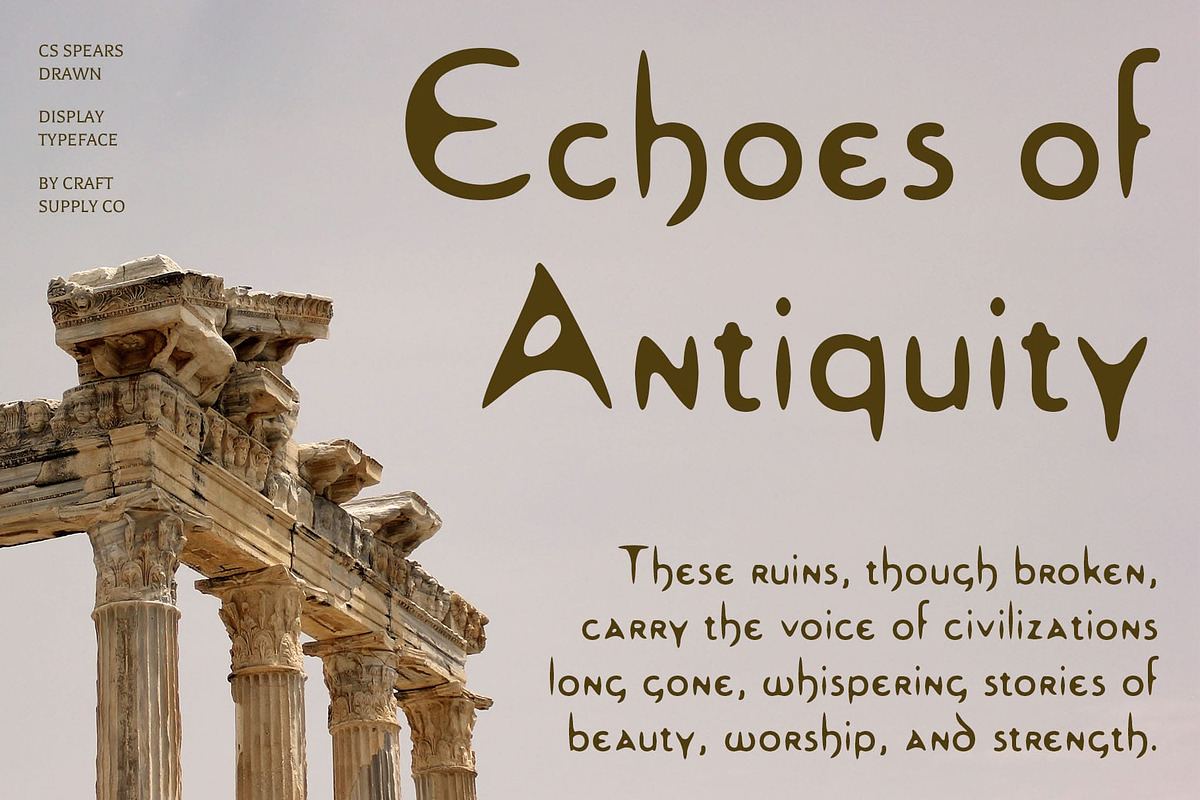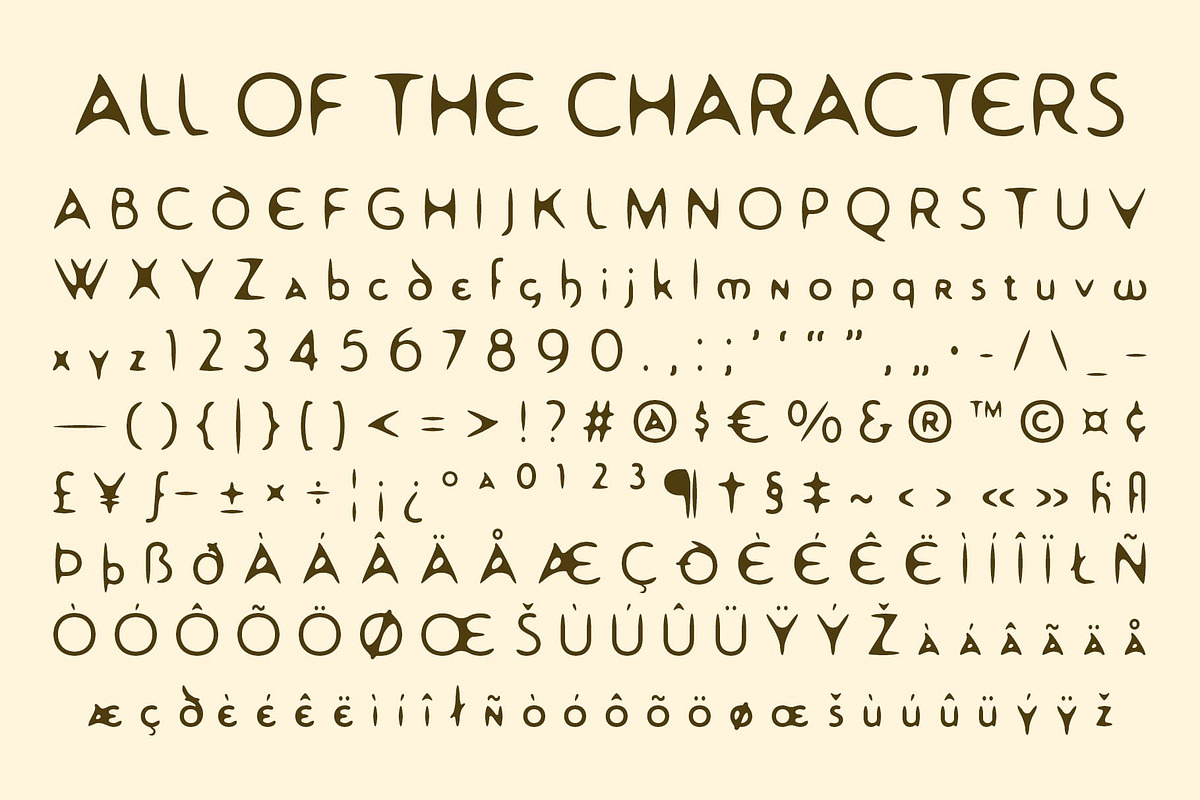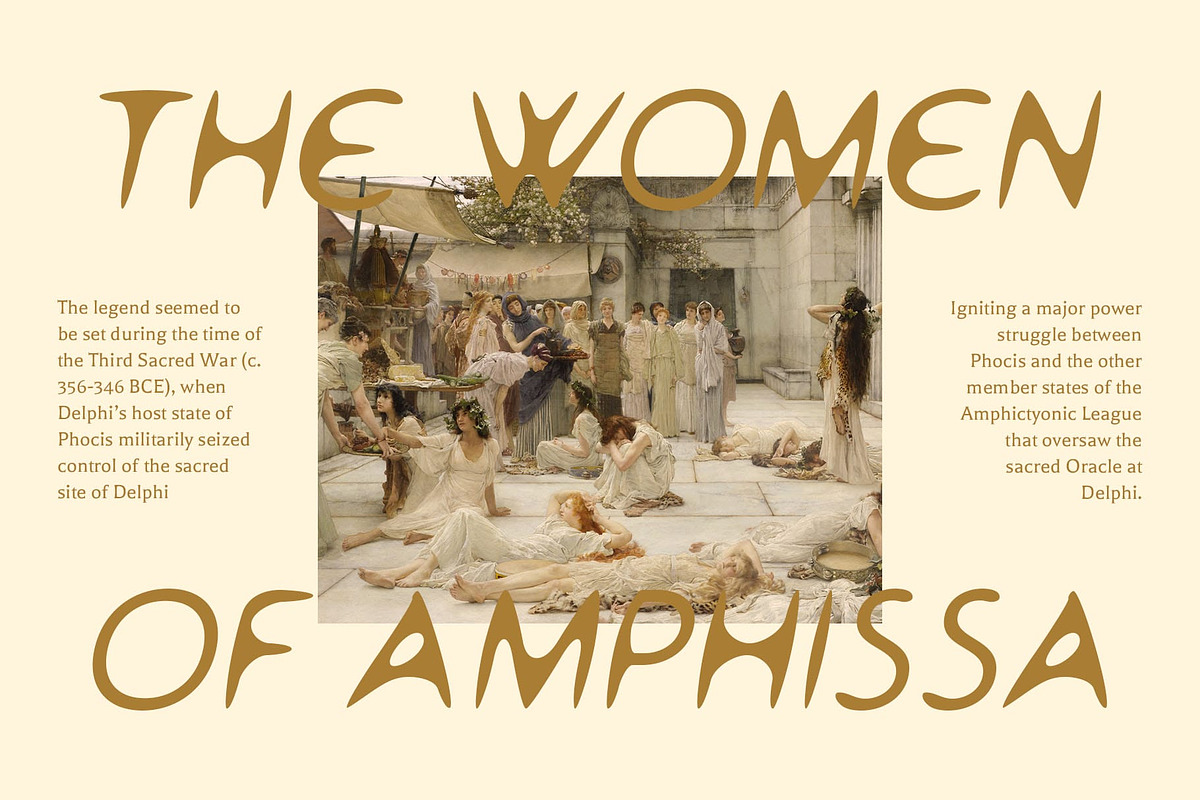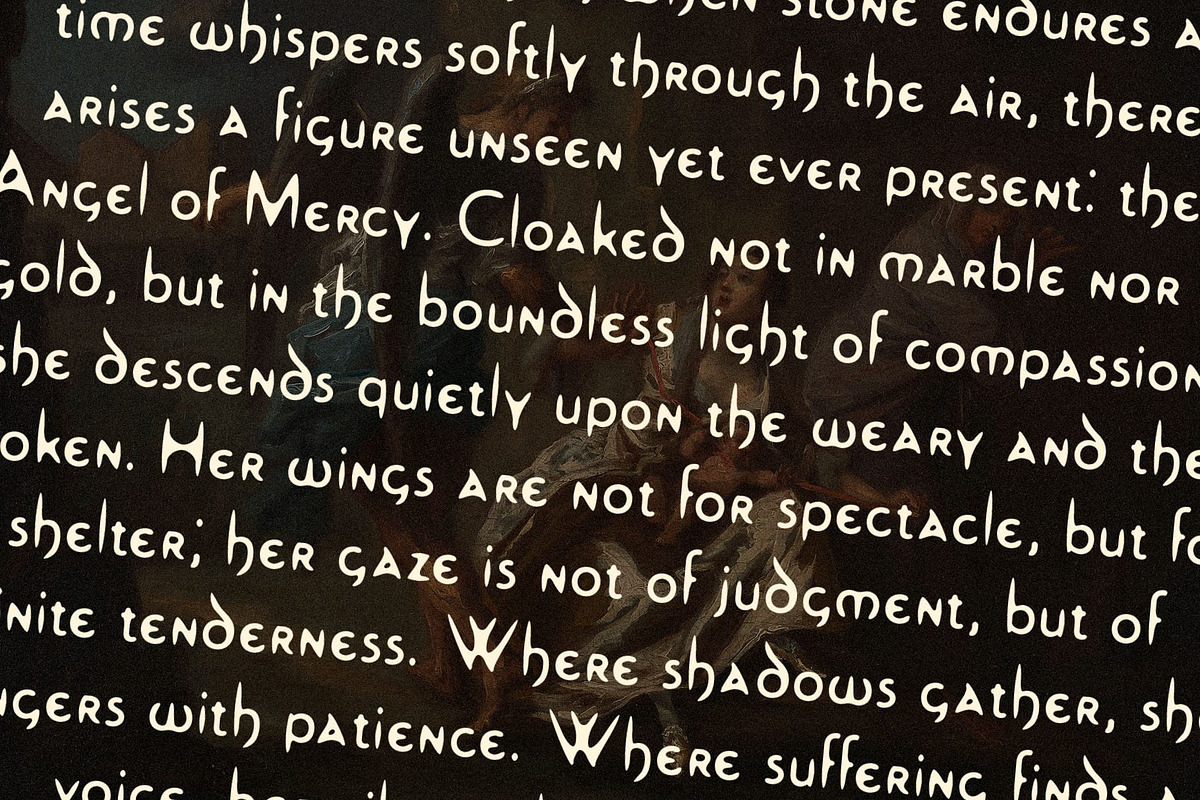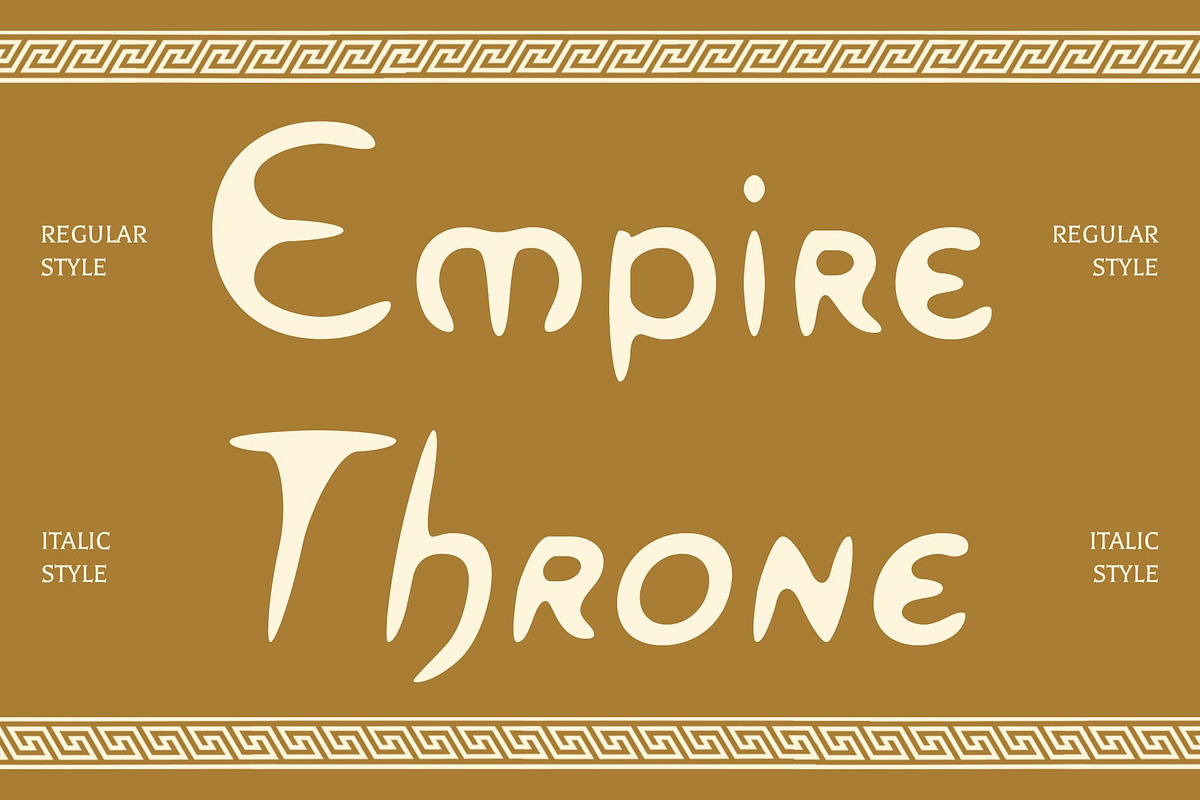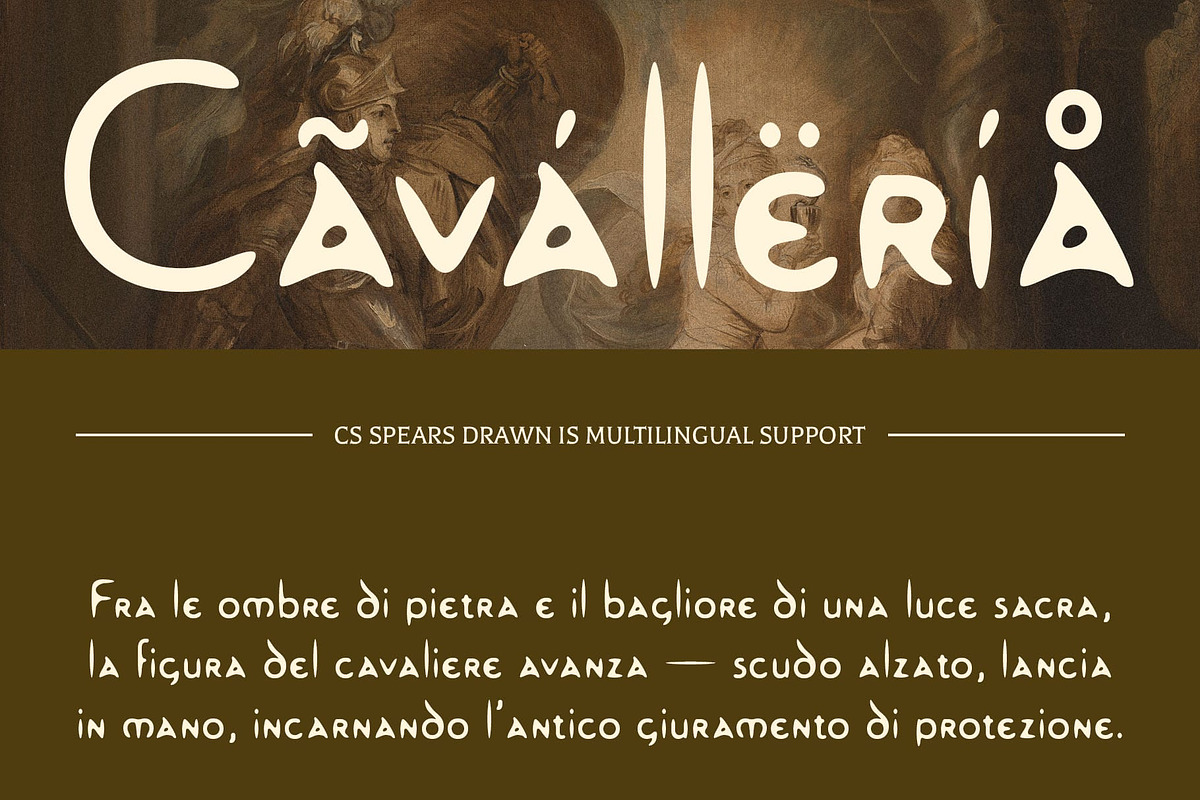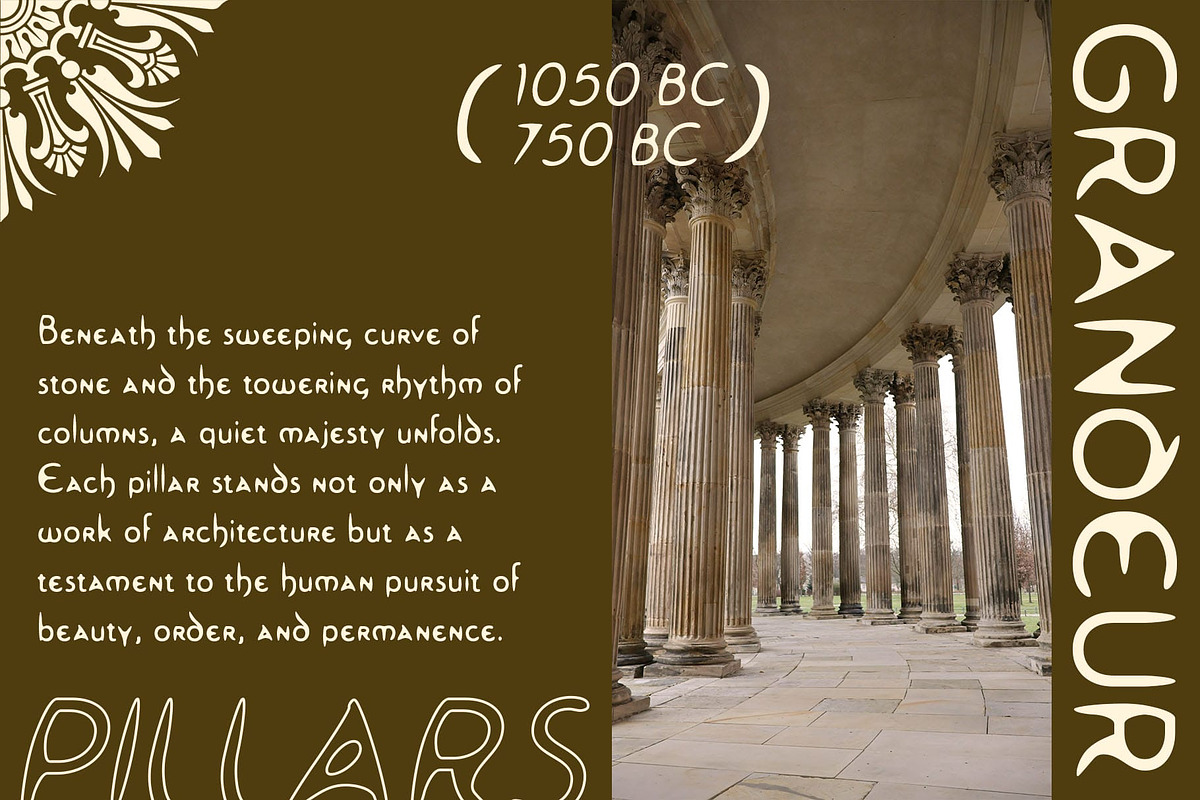
CS Spears Drawn
CS Spears Drawn – Uncial Display Font with Historic Elegance
Historic Tradition with Artistic Flair This Font takes inspiration from ancient manuscripts, translating their timeless character into a modern display typeface. With its uncial-style sans serif structure, the font conveys tradition and authority while remaining approachable and versatile. The letterforms capture a sense of heritage, making it ideal for projects that want to connect with classical aesthetics.
Hand-Drawn Finish for Unique Personality What sets font apart is its expressive drawn texture. Each character feels handmade, with subtle irregularities that highlight artistry and individuality. This handcrafted quality not only enhances the font’s visual appeal but also adds warmth, ensuring it stands out in a world of sterile, digital-perfect typefaces.
Perfect for Refined and Cultural Design Whether you are designing book titles, museum exhibits, or cultural posters, this font lends an air of refinement and history. Its unique balance of classical structure and artistic imperfection makes it equally suitable for luxury branding projects, giving logos and packaging a sense of heritage and sophistication.
Versatile in Classical and Modern Contexts Though rooted in historical tradition, this font adapts effortlessly to contemporary design needs. It can frame editorials with elegance, give branding projects a cultural edge, or make posters feel both timeless and creative. This versatility ensures that the font is not limited to one era but thrives in both classical and modern applications.